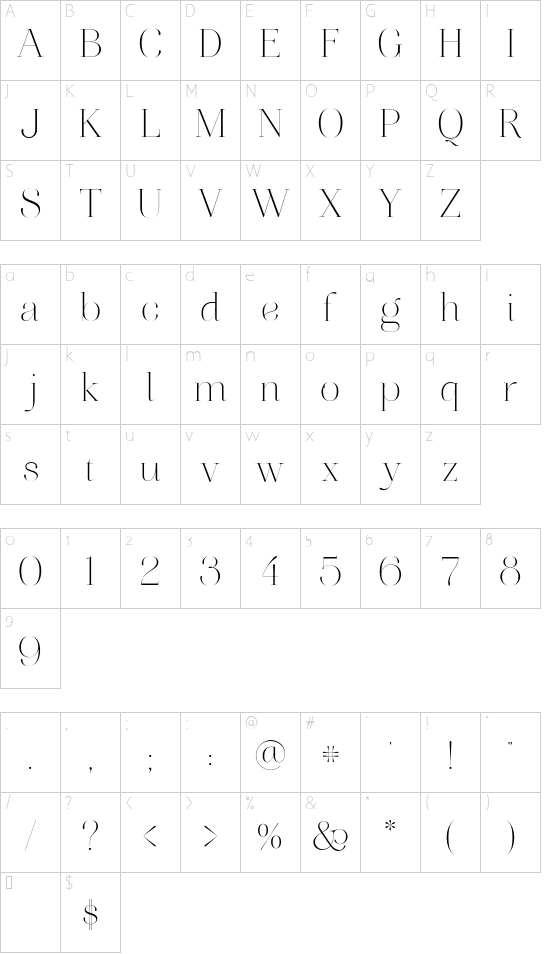
Aire Pro Font
Aire Pro Font - We recommend seeing its user?s guide. Web buy now aire is what sproviero would call a < big display family >.
We recommend seeing its user?s guide. Web buy now aire is what sproviero would call a < big display family >.
Web buy now aire is what sproviero would call a < big display family >. We recommend seeing its user?s guide.
Aire Bold Pro Font by Lián Types Font Bros
We recommend seeing its user?s guide. Web buy now aire is what sproviero would call a < big display family >.
Aire Roman Italic Pro Font by Lián Types Font Bros
We recommend seeing its user?s guide. Web buy now aire is what sproviero would call a < big display family >.
Web buy now aire is what sproviero would call a < big display family >. We recommend seeing its user?s guide.
Serif Fonts Aire Pro
Web buy now aire is what sproviero would call a < big display family >. We recommend seeing its user?s guide.
We recommend seeing its user?s guide. Web buy now aire is what sproviero would call a < big display family >.
Web buy now aire is what sproviero would call a < big display family >. We recommend seeing its user?s guide.
Aire Fleurons Pro Font by Lián Types Font Bros
Web buy now aire is what sproviero would call a < big display family >. We recommend seeing its user?s guide.
Web Buy Now Aire Is What Sproviero Would Call A < Big Display Family >.
We recommend seeing its user?s guide.